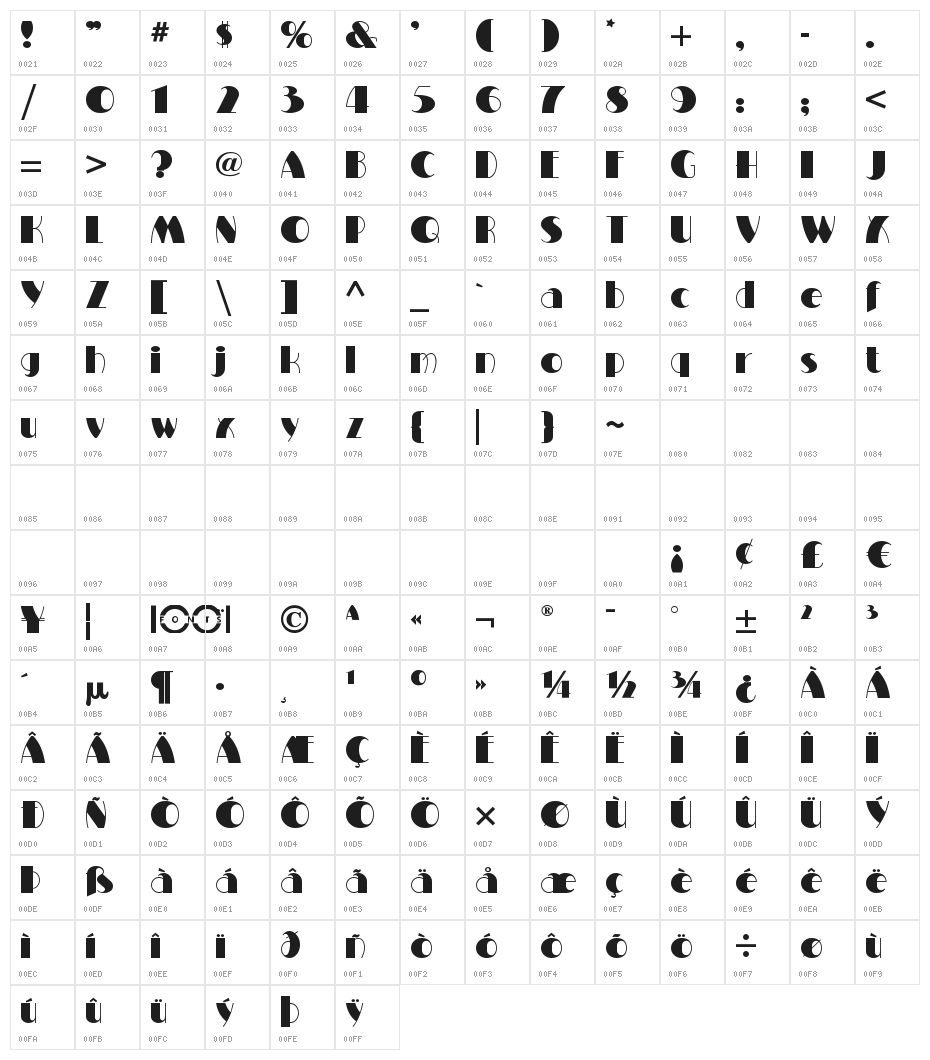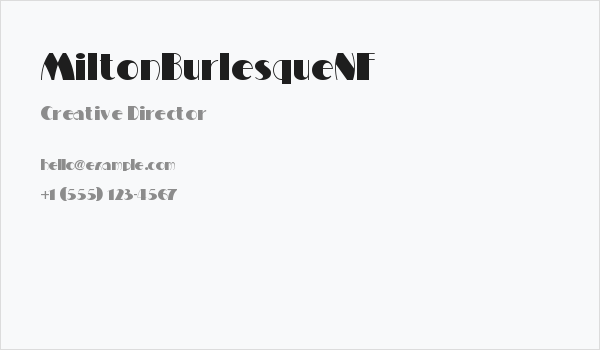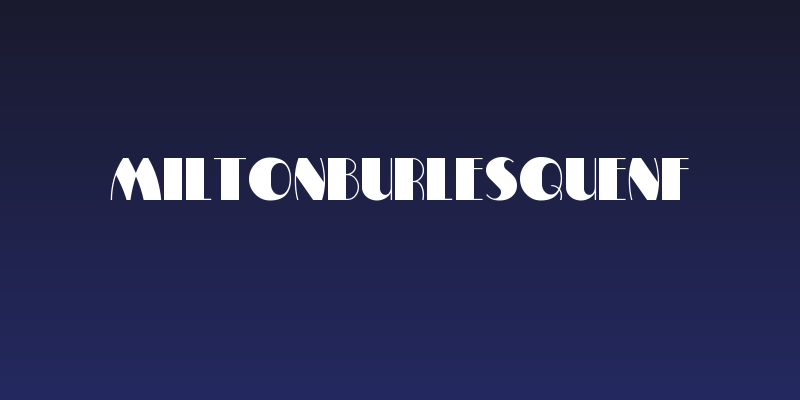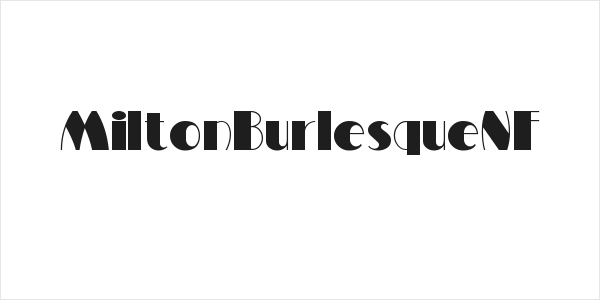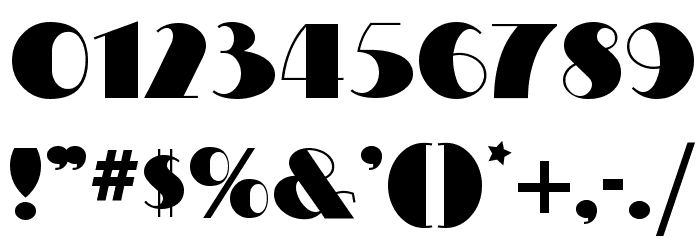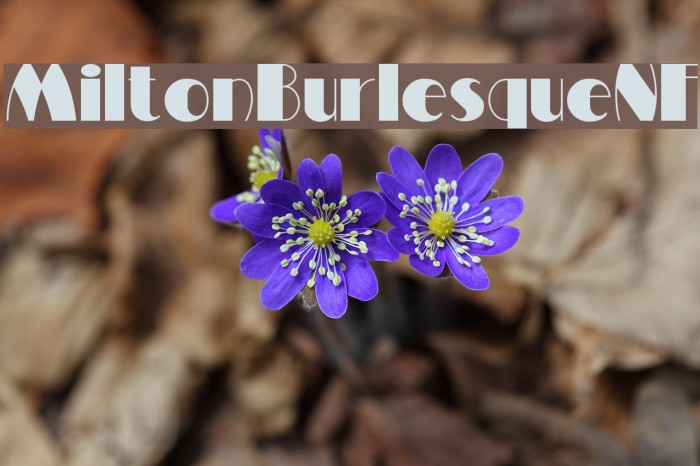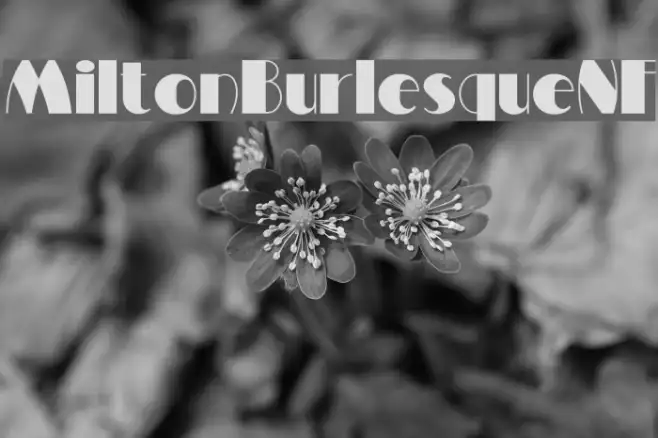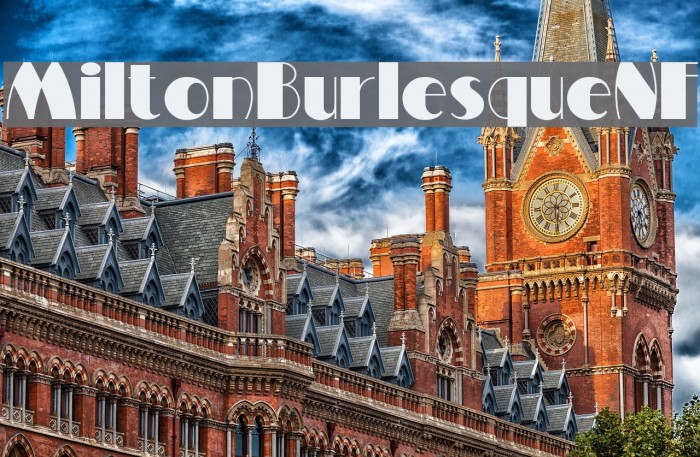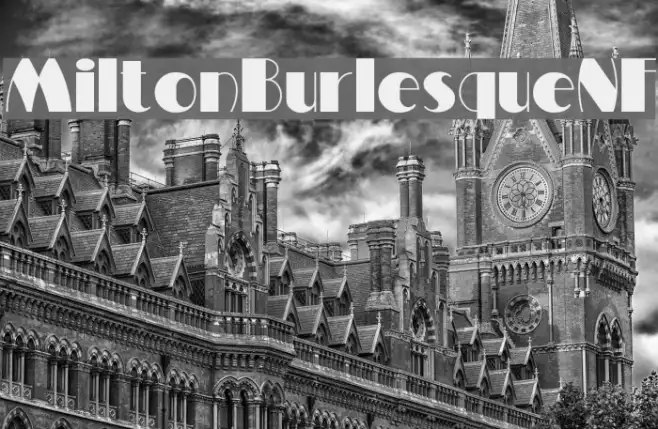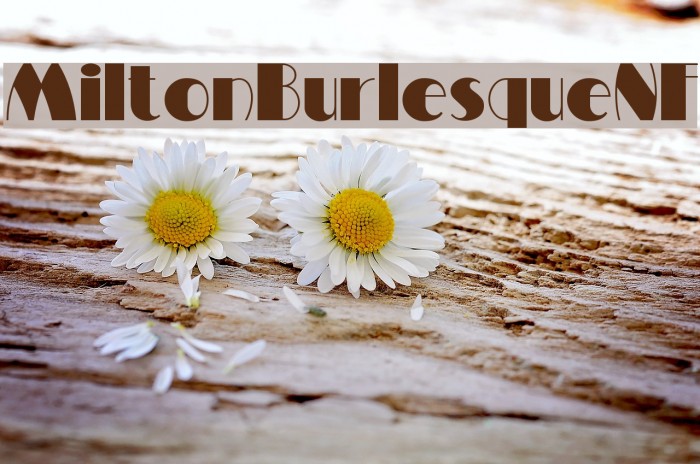
MiltonBurlesqueNF Font
✎ Art Deco
MiltonBurlesqueNF Description
This font features a bold and playful design with a distinct Art Deco influence. The uppercase letters are characterized by strong geometric shapes and high contrast between thick and thin strokes, creating a dramatic and eye-catching appearance. The lowercase letters maintain this boldness while incorporating more curves and unique forms, adding a whimsical touch. The numerals are equally bold and geometric, ensuring consistency throughout the typeface. Special characters are designed with the same attention to detail, making them stand out. Overall, this font exudes a sense of elegance and vintage charm, perfect for making a statement.
| Proposed Projects | Ideal for vintage-themed posters, branding, and editorial design projects. |